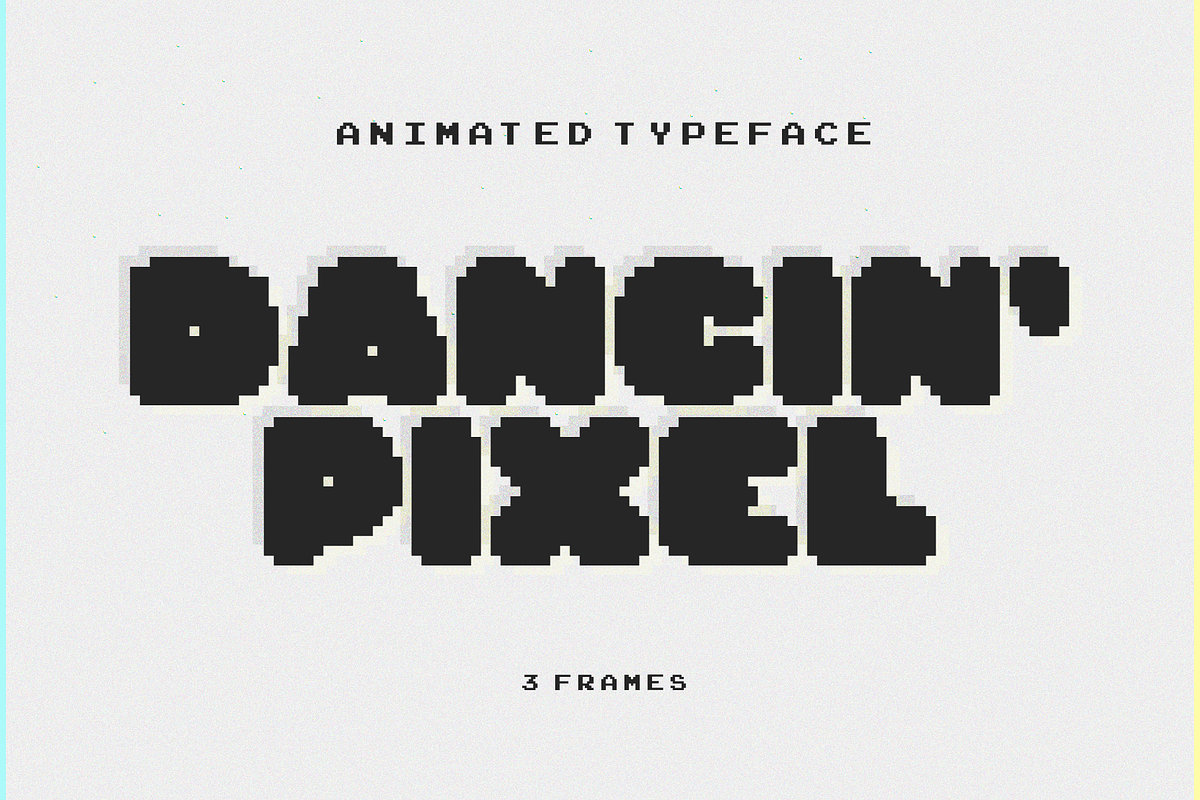
Please note, to use this font for commercial purposes, you must purchase the full version. Dancin' Pixel is a fun and dynamic animated typeface that brings a playful and energetic touch to your designs. With its pixelated letterforms and animation-inspired style, this font is perfect for logos, branding, posters, game design, and creative projects that need a lively and futuristic feel. Whether you're designing for a gaming brand, a digital event, or a playful campaign, Dancin' Pixel adds motion and excitement to your work. Test it out and enjoy free download access for personal use. Experience the creative energy of Dancin' Pixel | Animated Typeface Free Download before purchasing the commercial license. Bring your designs to life with the dynamic style of Dancin' Pixel.